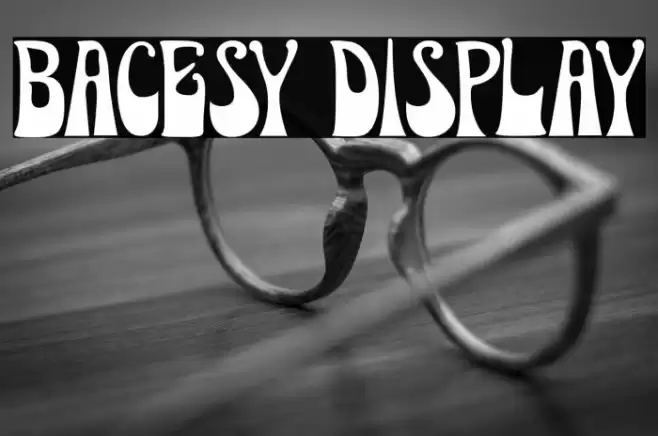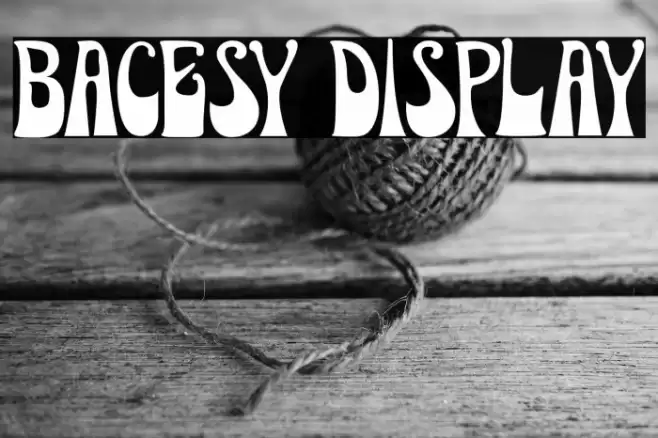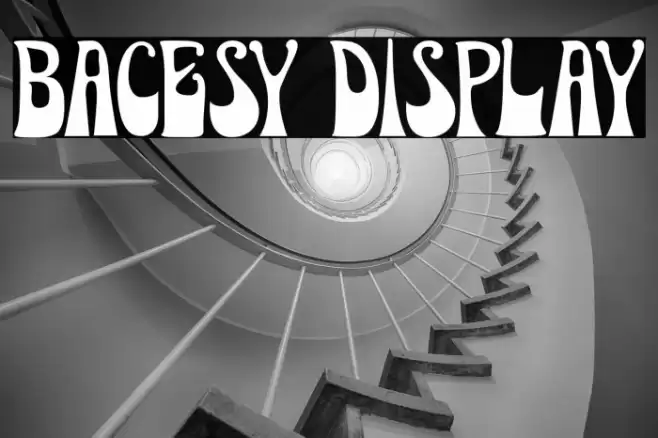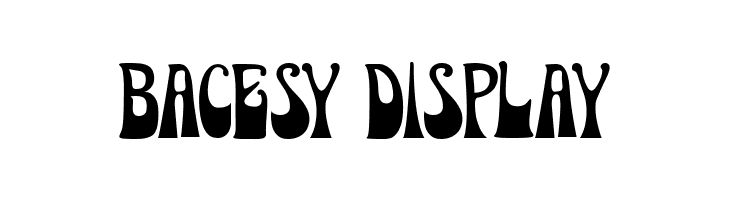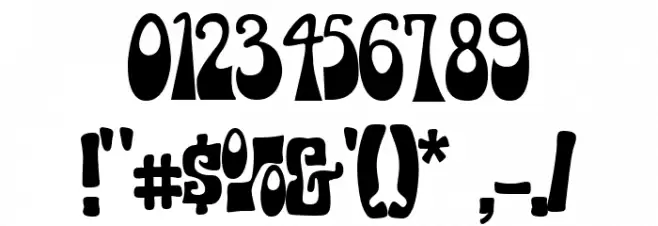
Bacesy Display Font
Bacesy Display Description
This font features a bold and playful design with exaggerated curves and varying stroke widths, creating a whimsical and eye-catching appearance. The characters are uniquely styled with a mix of sharp angles and rounded edges, giving it a dynamic and lively feel. The uppercase and lowercase letters maintain a consistent style, while the numbers and special characters complement the overall aesthetic. This font is ideal for projects that require a fun and engaging visual impact, making it suitable for creative and artistic applications.
A bold, playful font with exaggerated curves and dynamic styling from Kids fonts.
- Proposed Projects: Ideal for posters, children's books, creative branding, and playful graphic designs.
- Contrast: High
- Overall Style: Playful, Whimsical